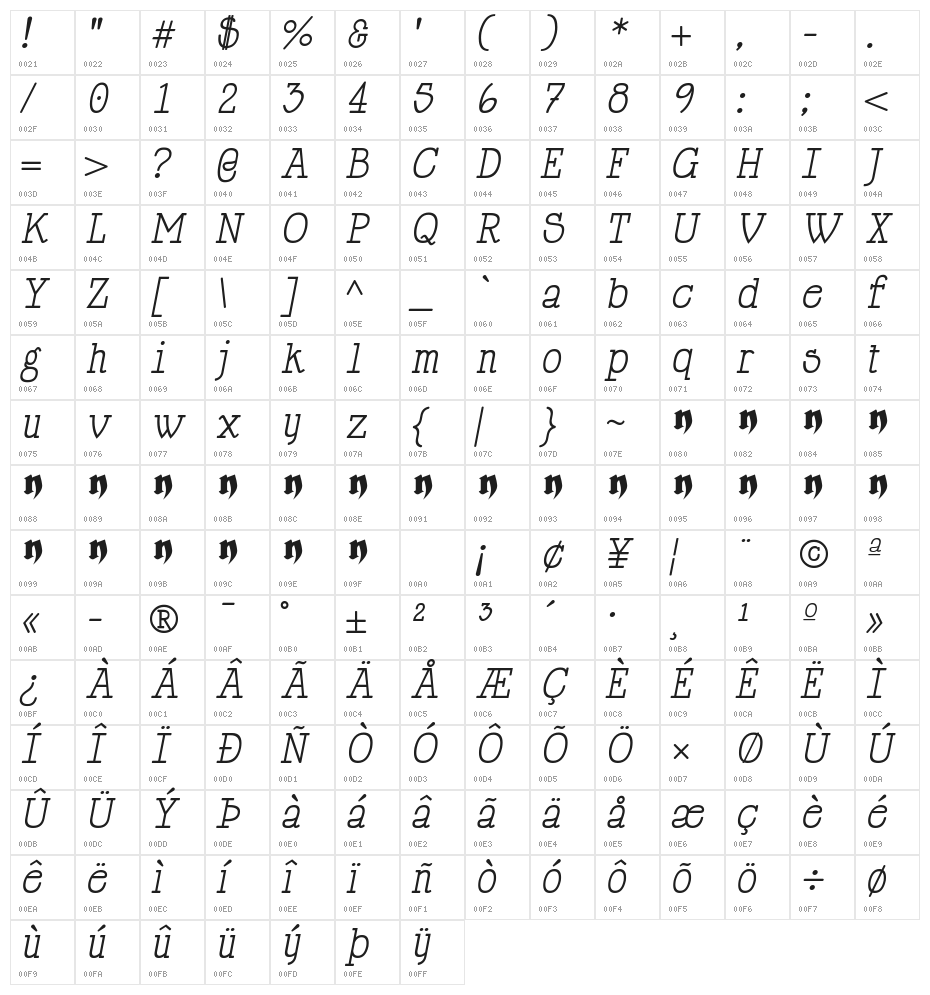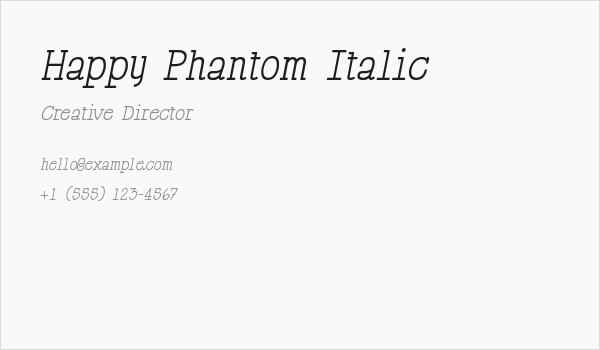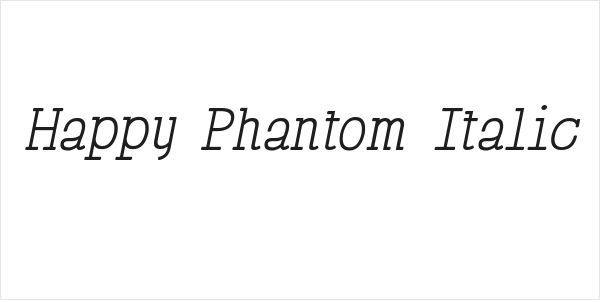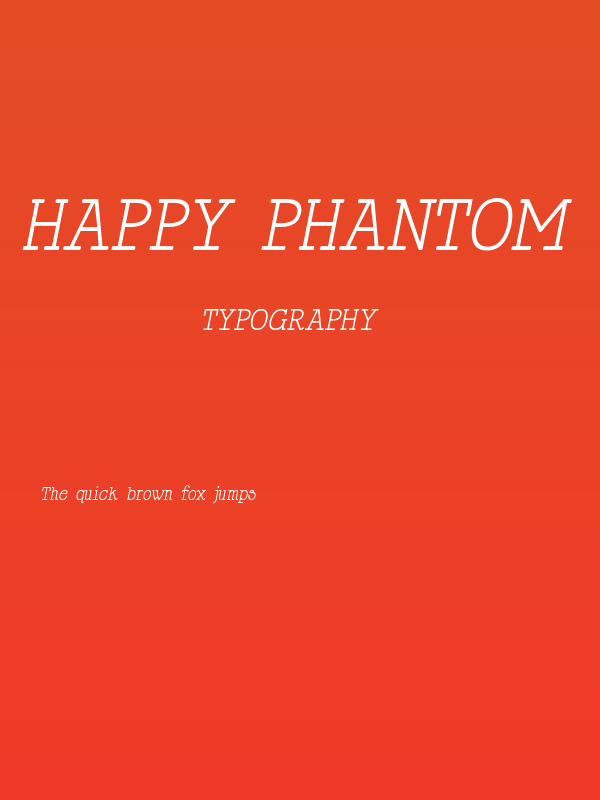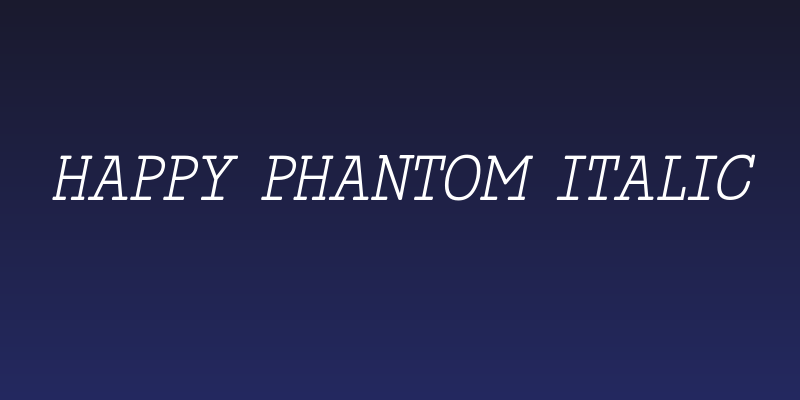
Happy Phantom Italic Font
Happy Phantom Italic Description
This font features a classic italic style with a slight slant, giving it a dynamic and elegant appearance. The characters are well-defined with moderate stroke contrast, providing a balance between readability and style. The uppercase letters are slightly taller than the lowercase, maintaining a traditional serif structure. The numerals and special characters are consistent with the overall design, offering a cohesive look across all glyphs. The font's design is suitable for both formal and creative applications, making it versatile for various uses.
| Proposed Projects | Ideal for editorial design, book covers, formal invitations, and branding materials that require a touch of elegance. |